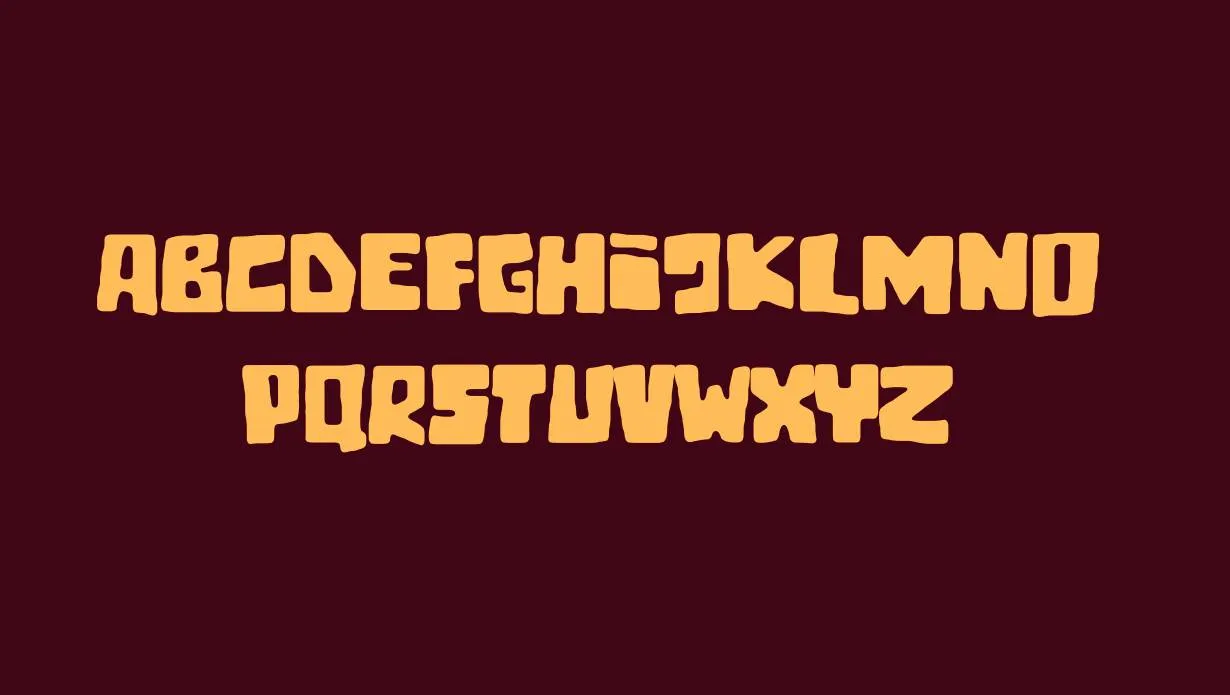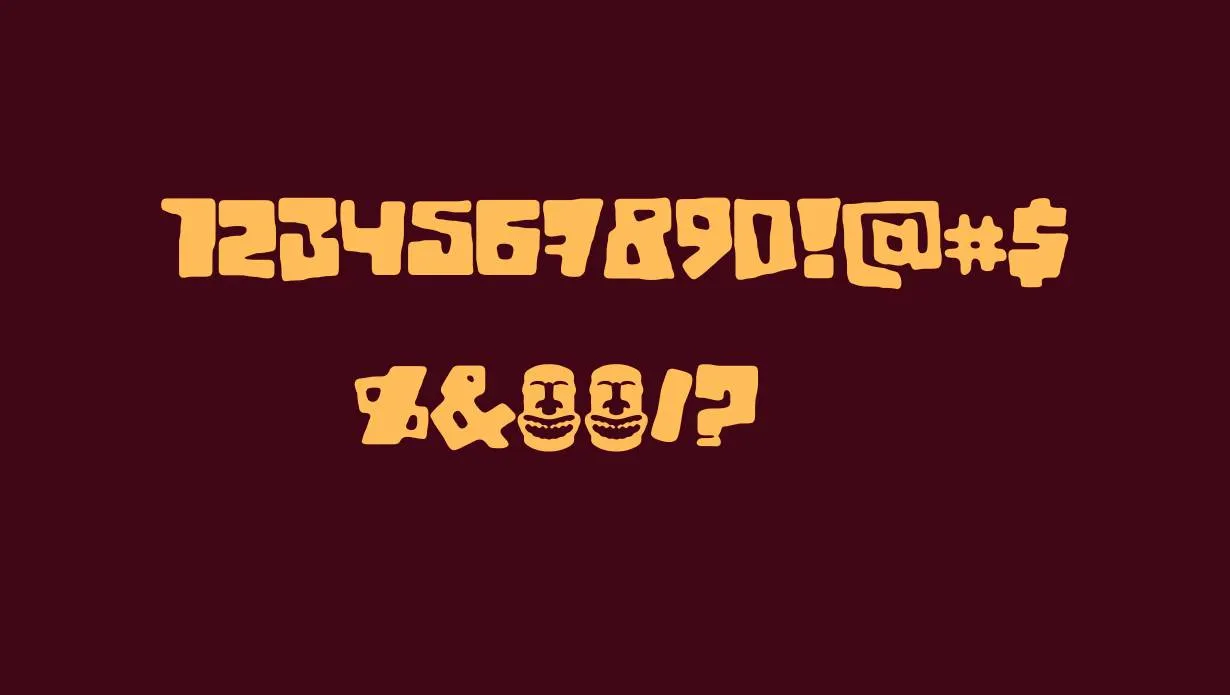
We’re presenting Tiki Tako Font, a fancy font that was designed by Woodcutter Manero. This typeface originates in TTF and OTF file formats.
It also contains 236 stylish characters in large and small alphabets, numerals, signs, symbols, punctuation, and some special characters.